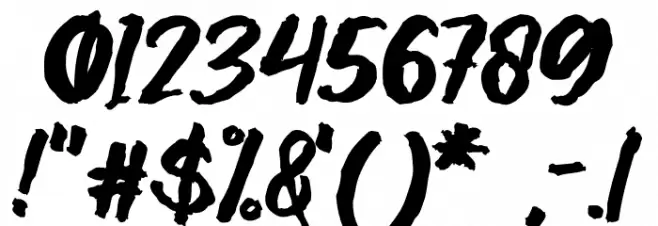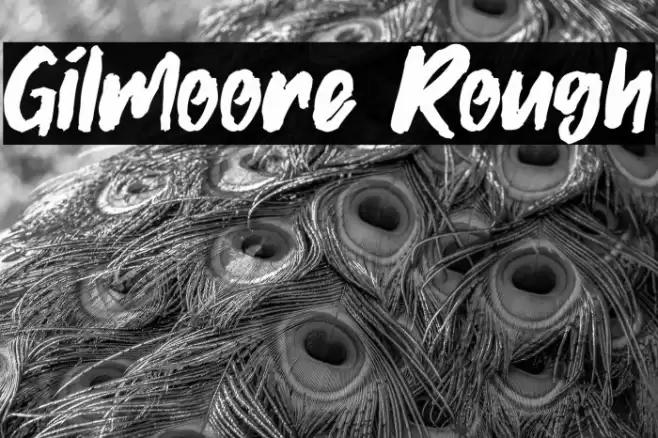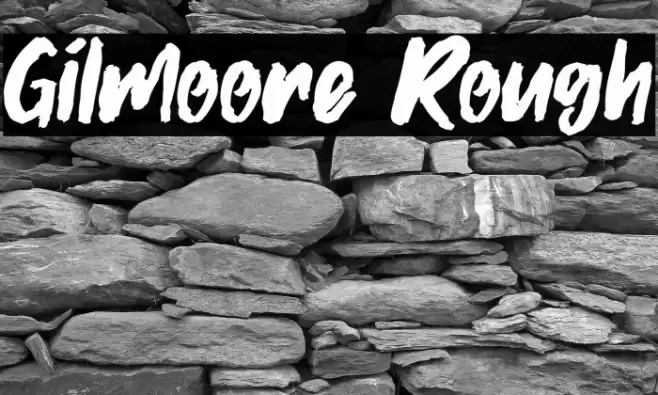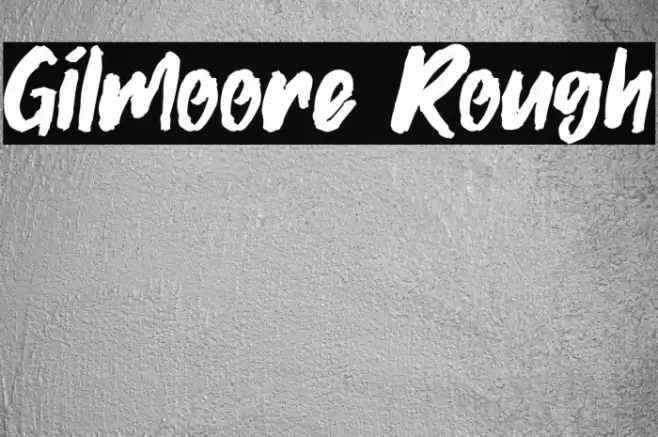
Gilmoore Rough Font
This font features a bold, expressive style with a rough, hand-painted appearance. The letters are characterized by their thick strokes and uneven edges, giving them a dynamic and energetic look. The uppercase and lowercase letters maintain a consistent style, with a slight slant that adds to the casual, handwritten feel. The numbers and special characters follow the same design, ensuring a cohesive appearance across all elements. This font's rugged texture and bold presence make it ideal for projects that require a strong visual impact.
A bold, rough, hand-painted style font with thick strokes and dynamic energy.
- Proposed Projects: Ideal for posters, branding, packaging, and any design requiring a bold, artistic touch.